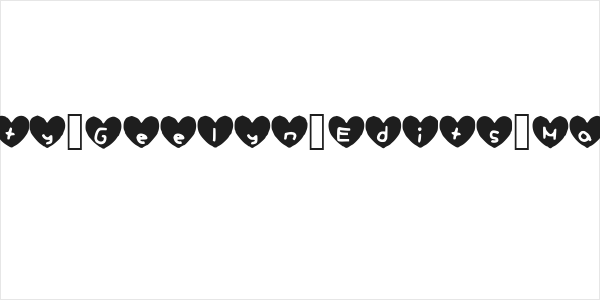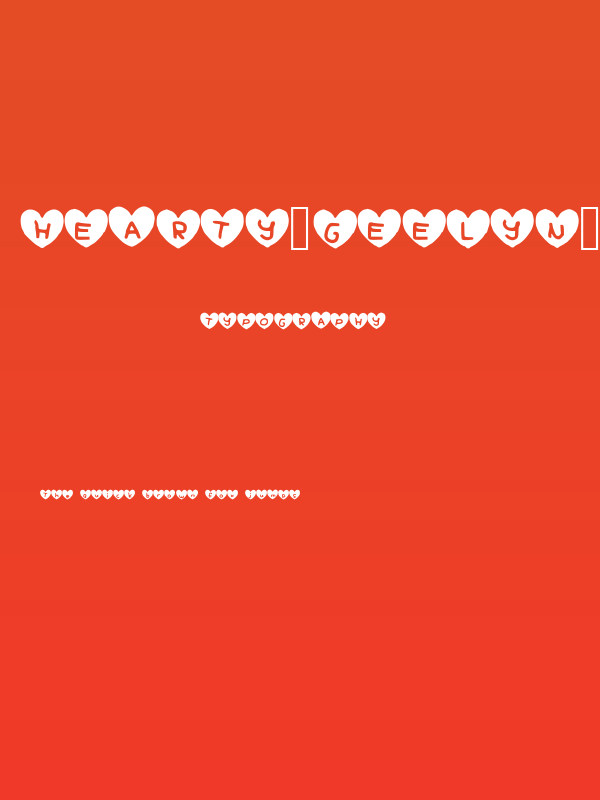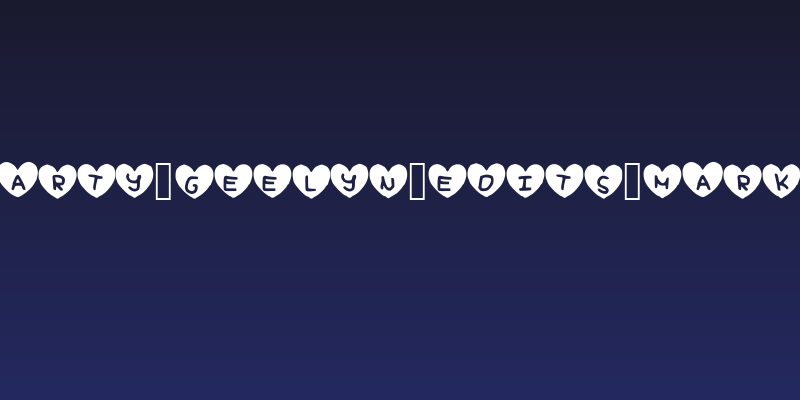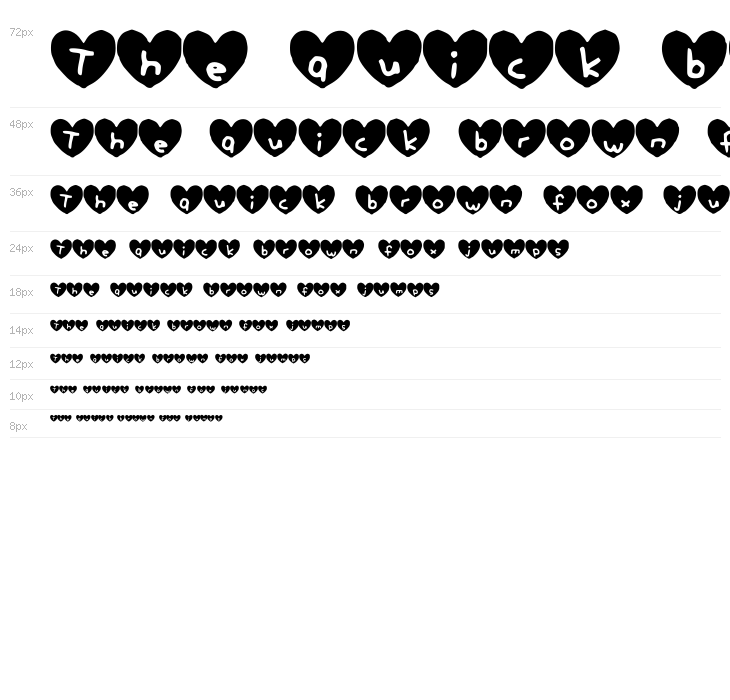
Hearty_Geelyn_Edits_Marker Font
Hearty_Geelyn_Edits_Marker Description
This playful and whimsical font features characters enclosed within heart shapes, giving it a unique and charming appearance. The letters and numbers are handwritten with a casual, friendly style, making it perfect for projects that require a personal touch. The font includes both uppercase and lowercase letters, as well as numbers and a variety of special characters. The heart-shaped enclosures add a decorative element, making the font ideal for romantic or themed designs. The overall look is informal and fun, with a slightly uneven stroke that enhances its hand-drawn feel.